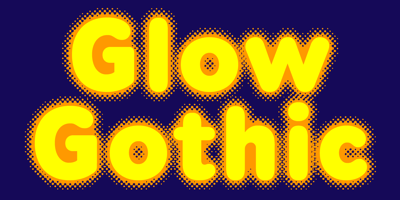
Glow Gothic BF Font Family was designed by John Bomparte and published by Bomparte’s Fonts. Glow Gothic BF contains 3 styles and family package options. Glow Gothic BF, like its predecessor Subliminal BF, represents further exploration into typographic special effects. In its original form, it features letters that are transparent, with an opaque glow. Glow Gothic Overlay and Glow Gothic Underlay share identical spacing values and are designed to be used together. Though “Overlay” can certainly be employed as a separate, stand-alone, solid font, using these two together allows for greater color and (tighter) kerning possibilities —see Gallery Images. Glow Gothic BF offers versatility for a wide number of purposes and is sure to add an appealingly distinctive look to your design project!